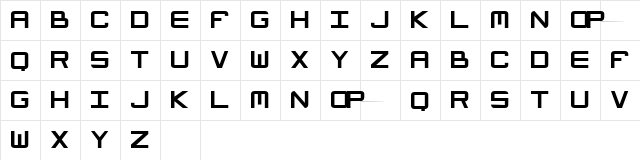
Tycho Regular
Design Context for Tycho Typeface
Tycho takes a measured approach to typography — its balanced proportions and neutral character make it a reliable workhorse for both digital and print work.